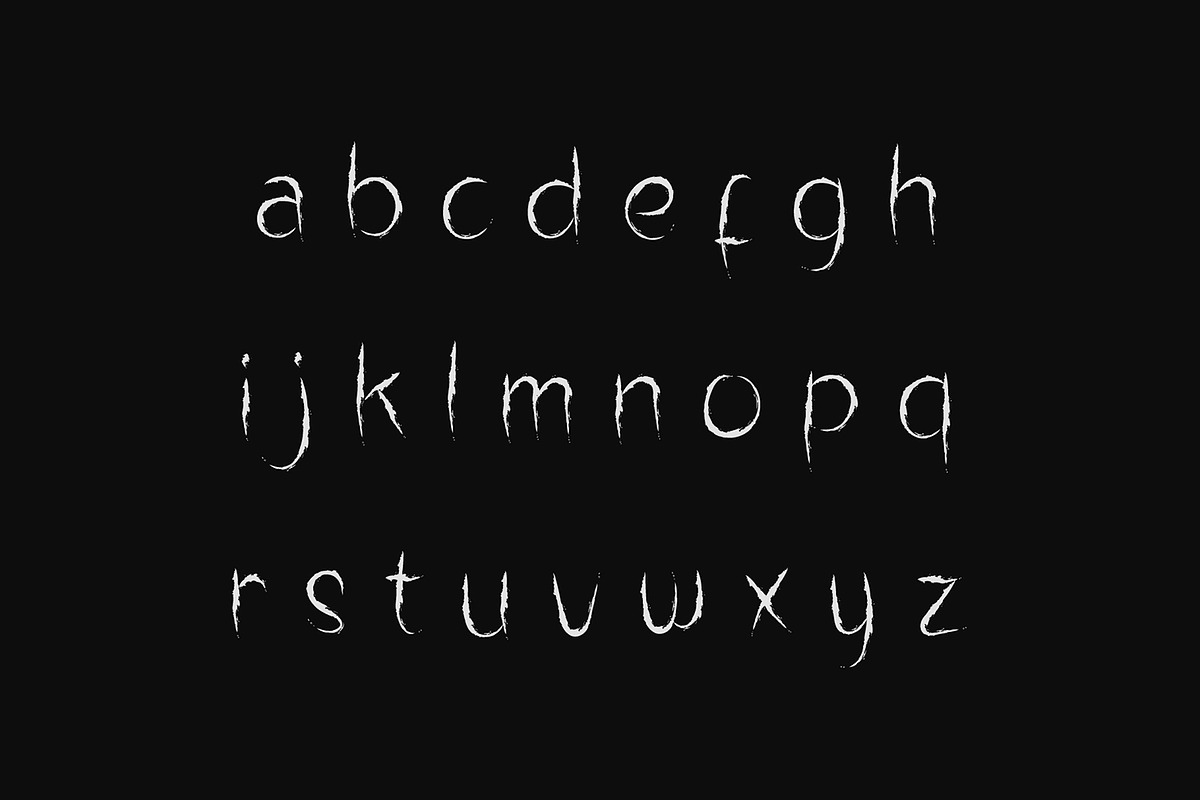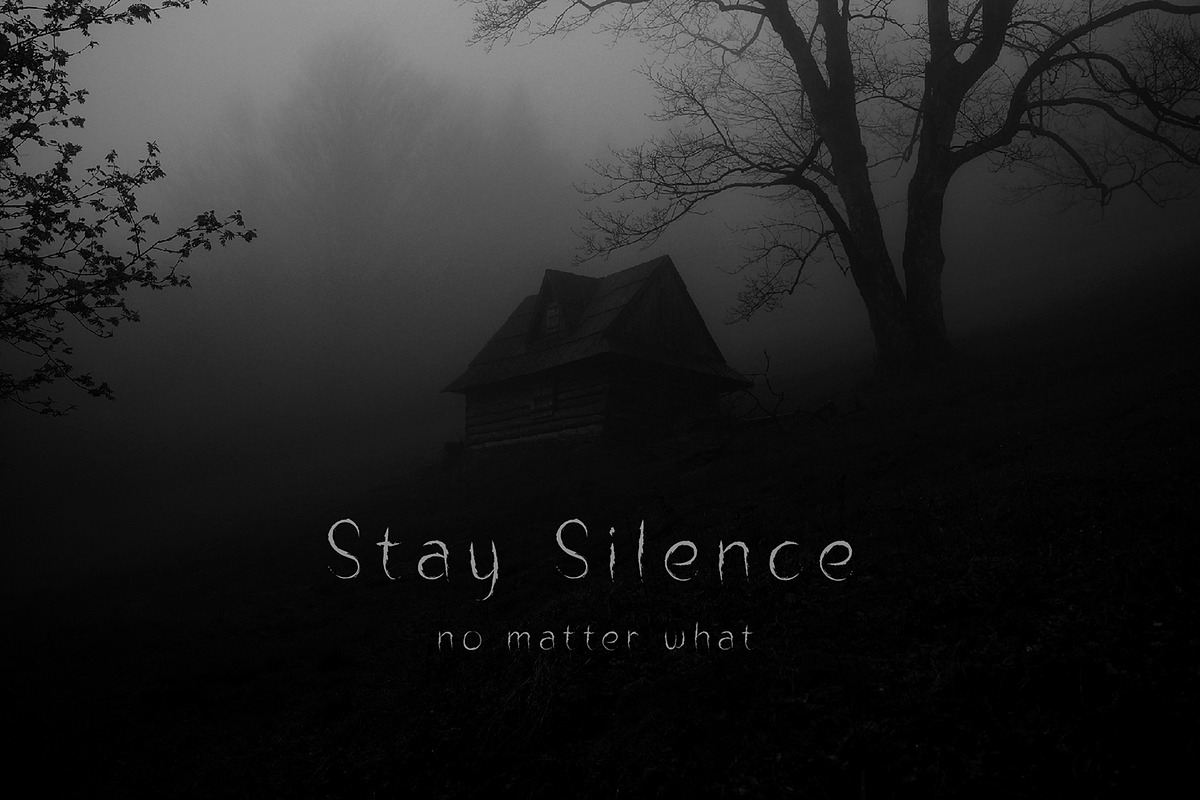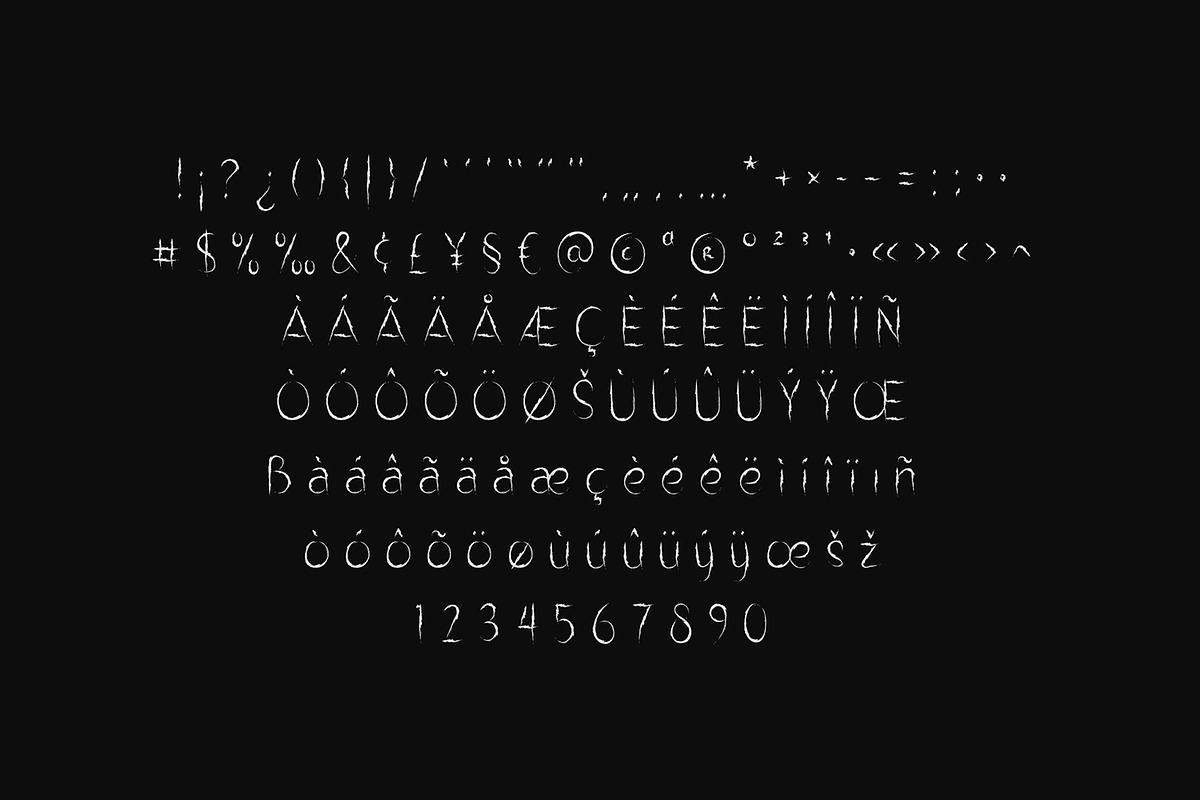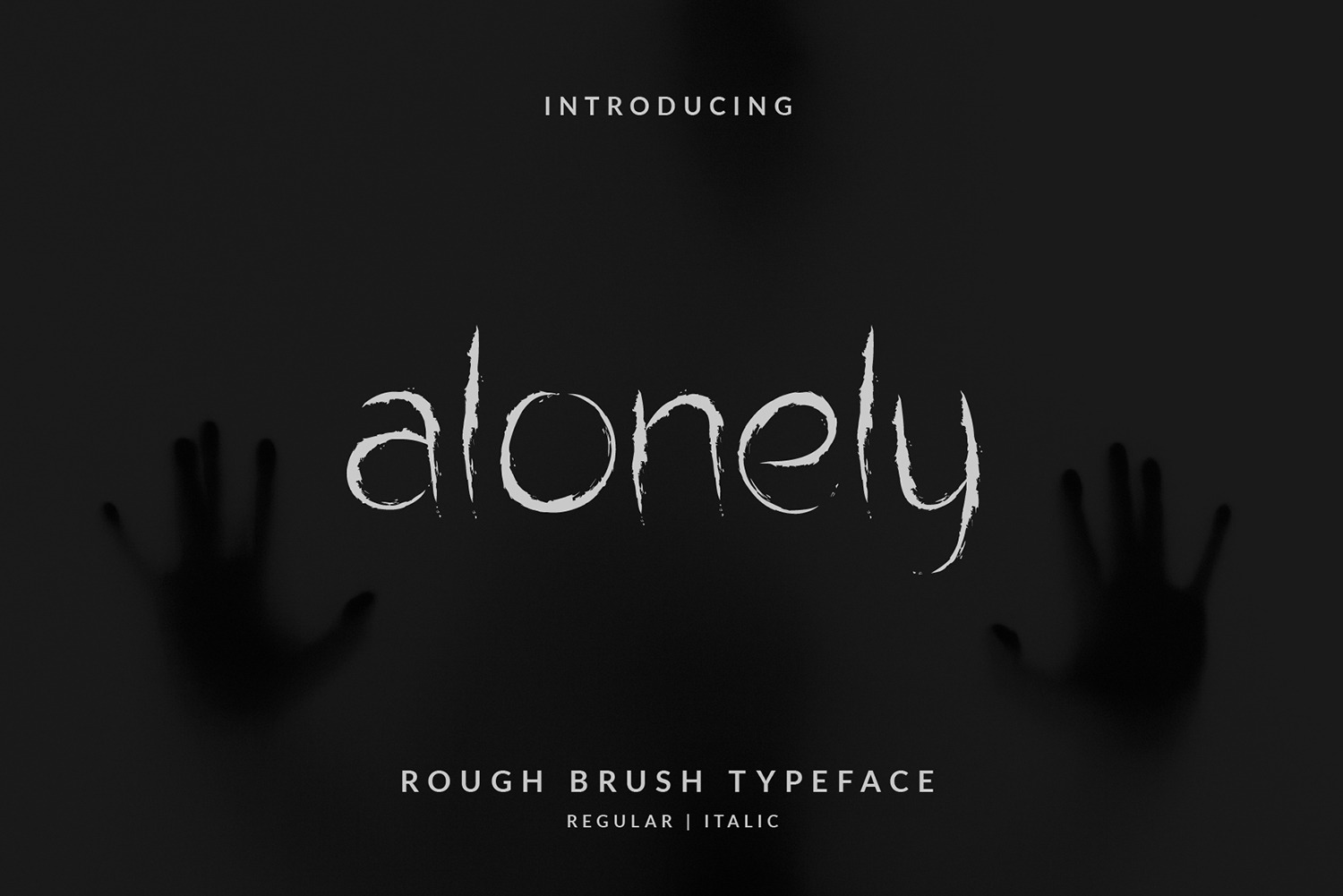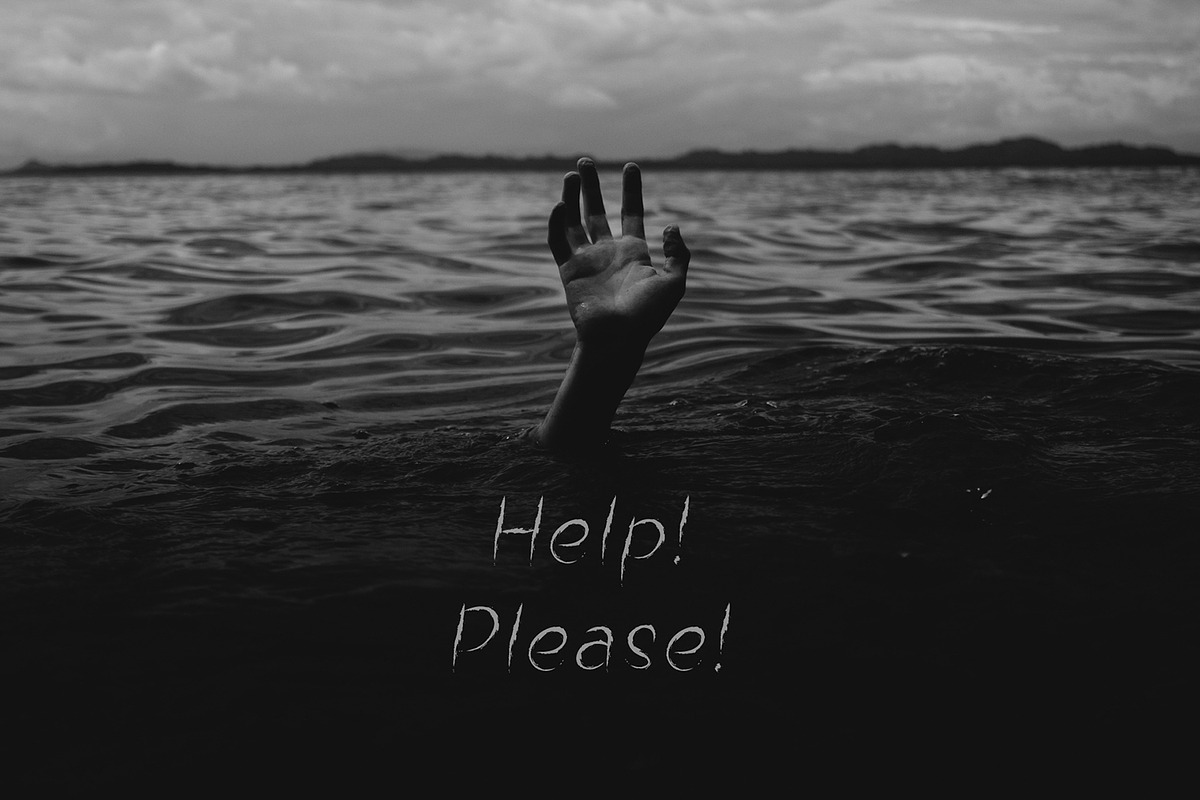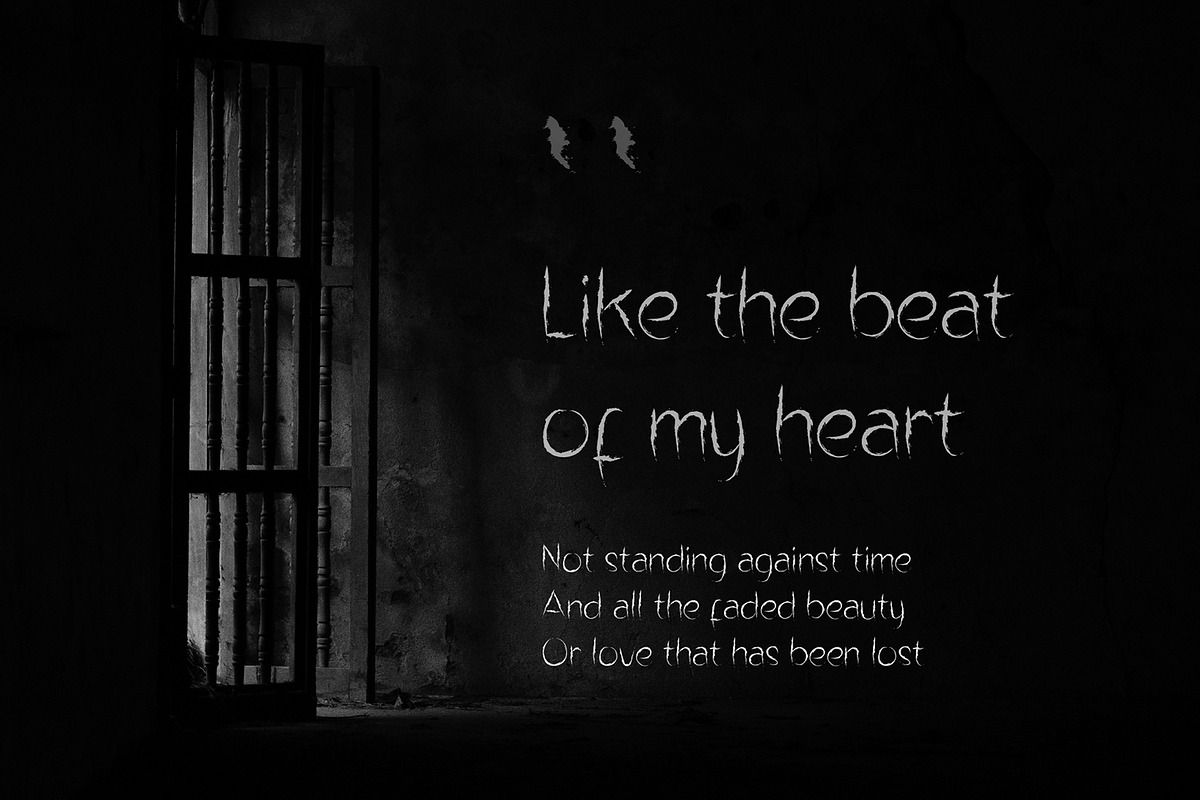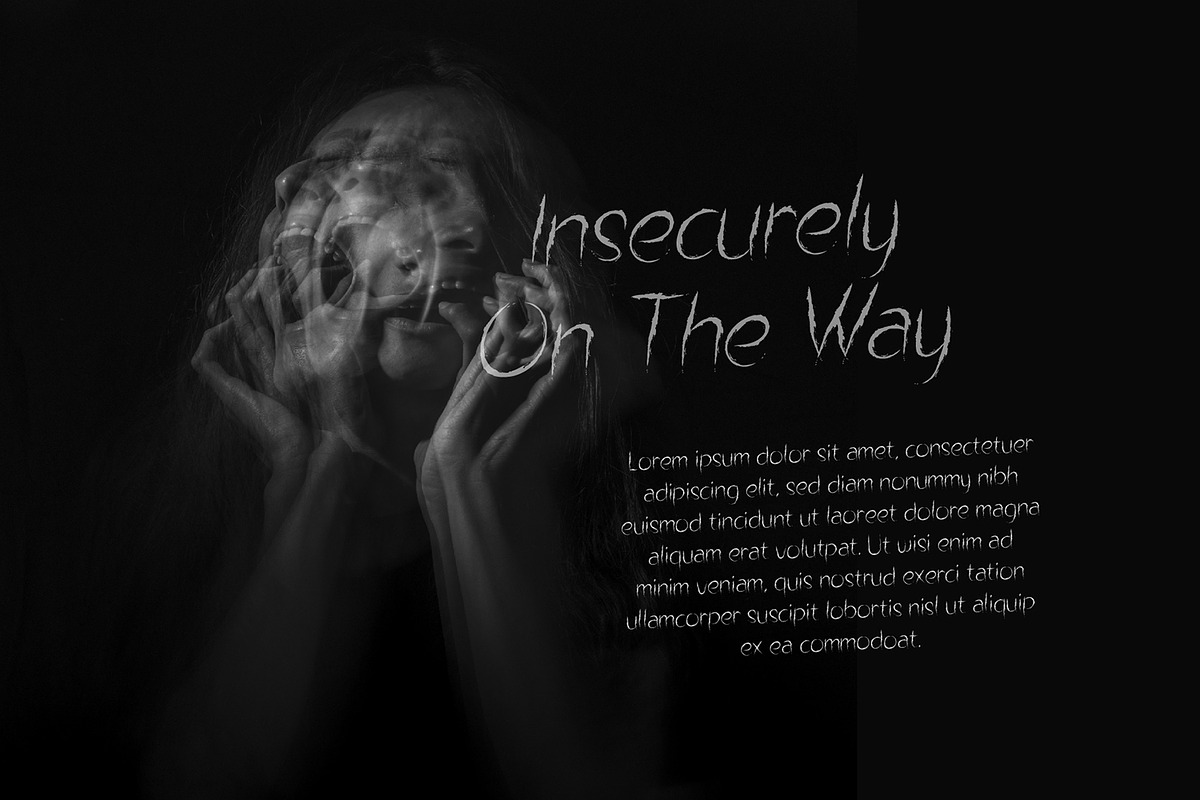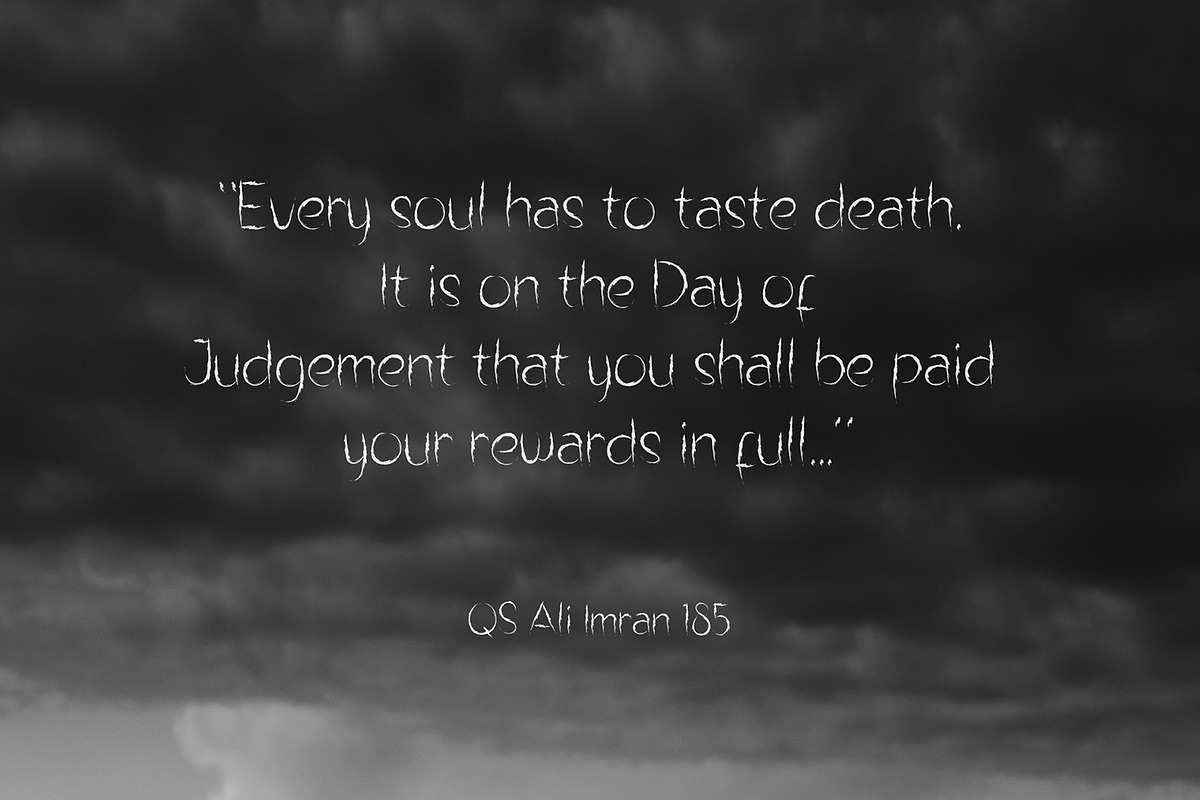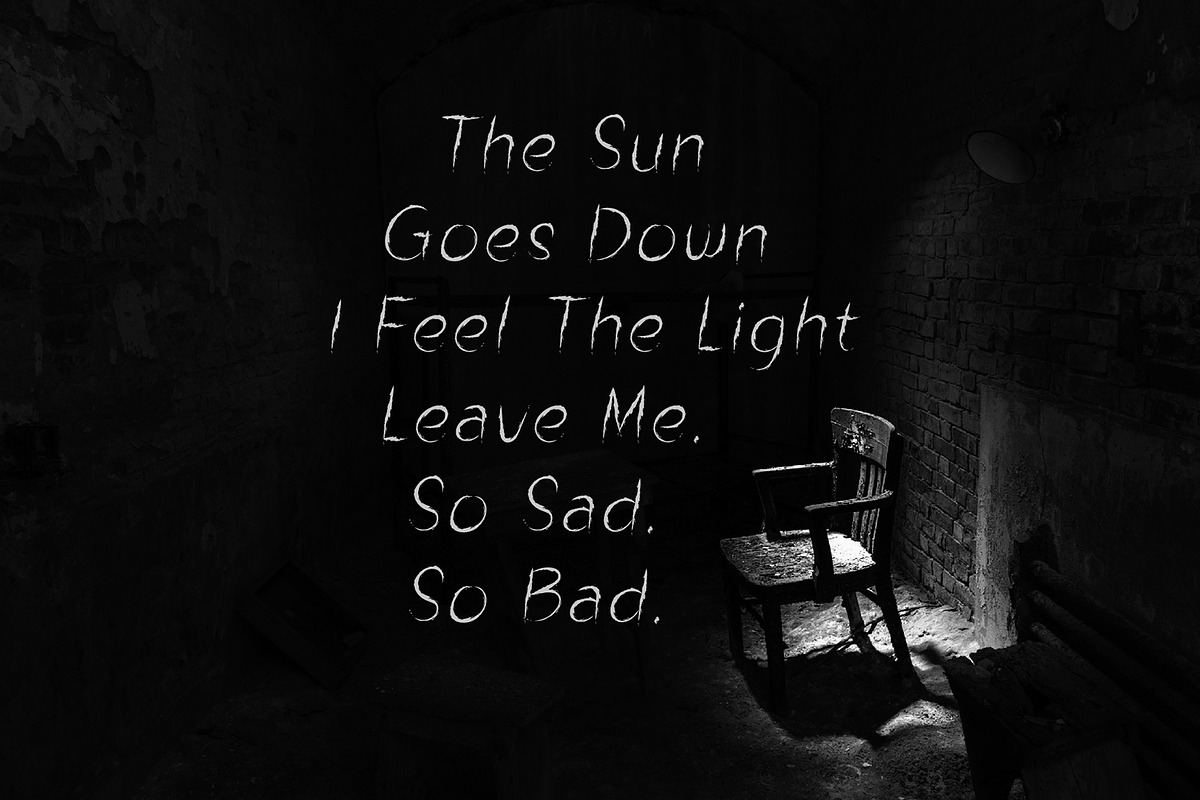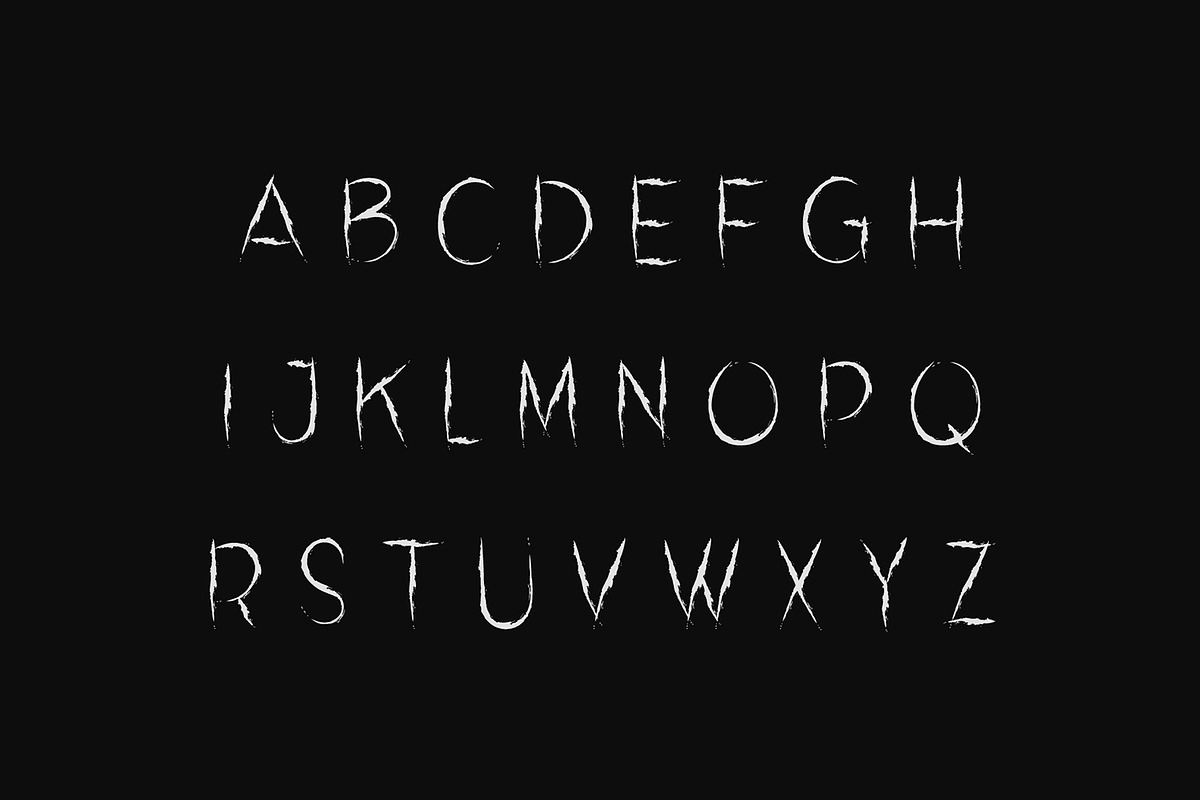
Alonely thorny Brush Font
Alonely is a rough brush typeface/font designed with carefully handcrafted. This perfectly made to be applied in logo or branding, stationery, books, packaging, fashion, magazines, t-shirt, greeting or wedding cards, vintage design, novels, labels and many advertising purposes.